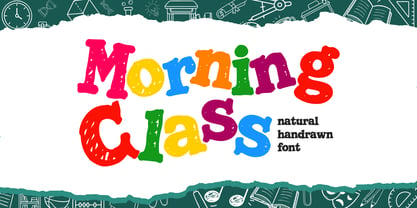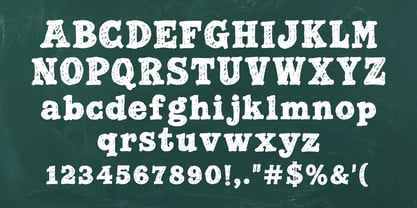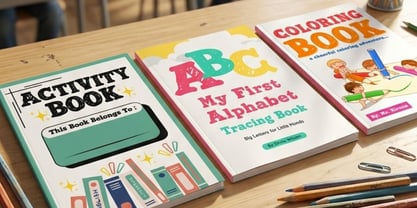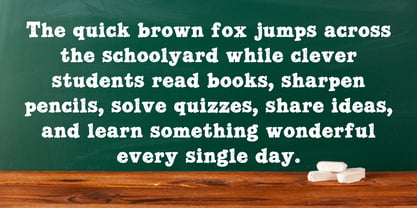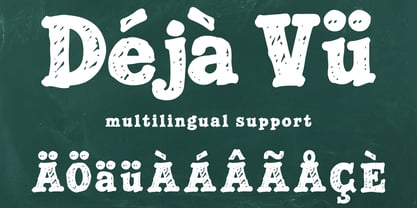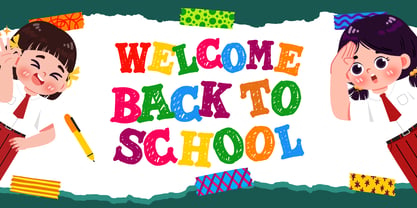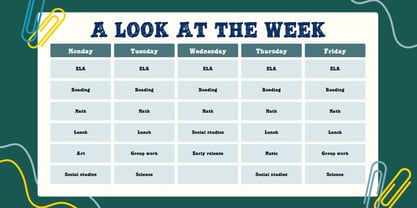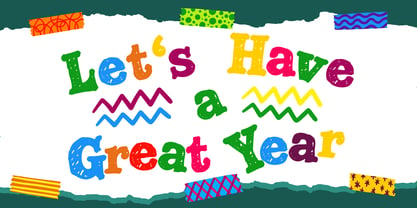
Morning Class
Morning Class is a cheerful hand-drawn display font created around the fun, creative, and energetic atmosphere of going back to school. Inspired by handwritten classroom notes, children's drawings, school stationery, doodles, notebooks, pencils, chalkboards, and colorful learning materials, this font brings a natural handmade personality to modern educational and seasonal designs.
Its irregular strokes and playful letterforms create an authentic hand-drawn appearance that feels friendly, approachable, and full of youthful energy. Rather than looking overly formal or mechanical, Morning Class captures the spontaneous character of handwriting, making it especially effective for projects aimed at children, students, parents, teachers, and creative educational brands.
The font includes uppercase characters, lowercase characters, numbers, punctuation, and multilingual support, providing a versatile character set for creating complete typographic compositions. The combination of uppercase and lowercase lettering allows designers to create varied visual hierarchy, while the matching numbers and punctuation maintain a consistent hand-drawn personality throughout each design.
Morning Class is naturally suited to back-to-school campaigns and educational graphics. It works beautifully for classroom posters, school event announcements, learning activities, worksheets, educational worksheets, bulletin boards, welcome signs, classroom labels, school newsletters, and seasonal promotional materials. Its cheerful appearance can also help make educational content feel more engaging and visually approachable.
The font is equally useful for children's branding and product design. Designers can use Morning Class for children's books, activity books, educational games, toys, stationery, notebooks, planners, pencil cases, school bags, stickers, greeting cards, invitations, and packaging. Its friendly appearance creates an inviting visual identity that works particularly well with colorful illustrations and playful graphic elements.
For apparel and merchandise, Morning Class provides a charming handwritten style for T-shirts, hoodies, tote bags, caps, stickers, mugs, and other products. Pairing the lettering with pencils, books, stars, apples, crayons, backpacks, doodles, or classroom illustrations can create engaging school-themed compositions.
Morning Class also works well beyond traditional school projects. Its natural handwritten personality makes it suitable for social media graphics, motivational quotes, children's content, creative branding, lifestyle products, printable designs, planner pages, craft projects, and seasonal campaigns. Designers can combine it with clean sans serif fonts to create contrast between playful headlines and supporting information.
The multilingual support makes Morning Class suitable for international educational projects and global creative campaigns. Designers can maintain a consistent visual identity when creating school-themed materials for different languages and audiences.
Its hand-drawn structure performs especially well at display sizes, where the natural character of each letter becomes more visible. Large headlines, short phrases, names, quotes, and promotional messages can instantly gain a cheerful handmade appearance without requiring additional lettering effects.
Morning Class is an excellent choice for anyone looking for a back to school font, hand-drawn font, kids font, classroom font, educational display font, playful handwritten font, or school lettering style. It brings together the warmth of handmade lettering with the versatility needed for modern print and digital design.
Whether you're preparing a new school-year campaign, designing classroom resources, creating children's merchandise, developing educational branding, or simply looking for a playful handwritten style, Morning Class adds an authentic, cheerful, and creative touch to every word.